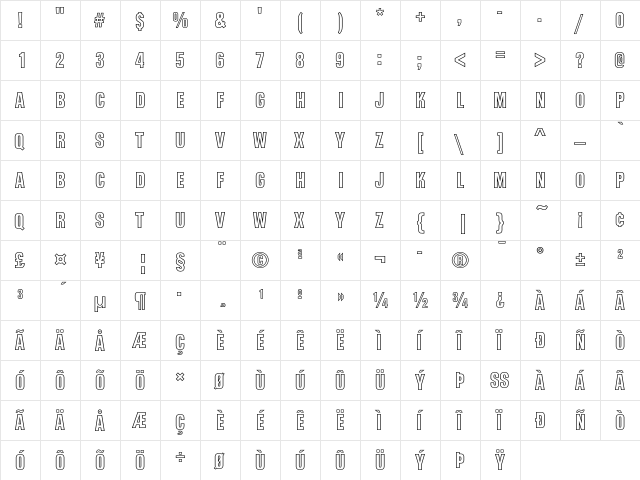
Gothic Outline Title D OT Regular
Design Context for Gothic Outline Title D OT Typeface
Gothic Outline Title D OT brings ornamental detail and strong personality to headlines and identities, where visual impact matters more than quiet functionality.
Font Pairing: Pair with a clean neutral sans-serif for body copy to let Gothic Outline Title D OT's character lead without overwhelming the composition.
Pro Tip: Use Gothic Outline Title D OT exclusively at display sizes — it was designed to be seen, not read at length. Let a neutral companion handle body copy.